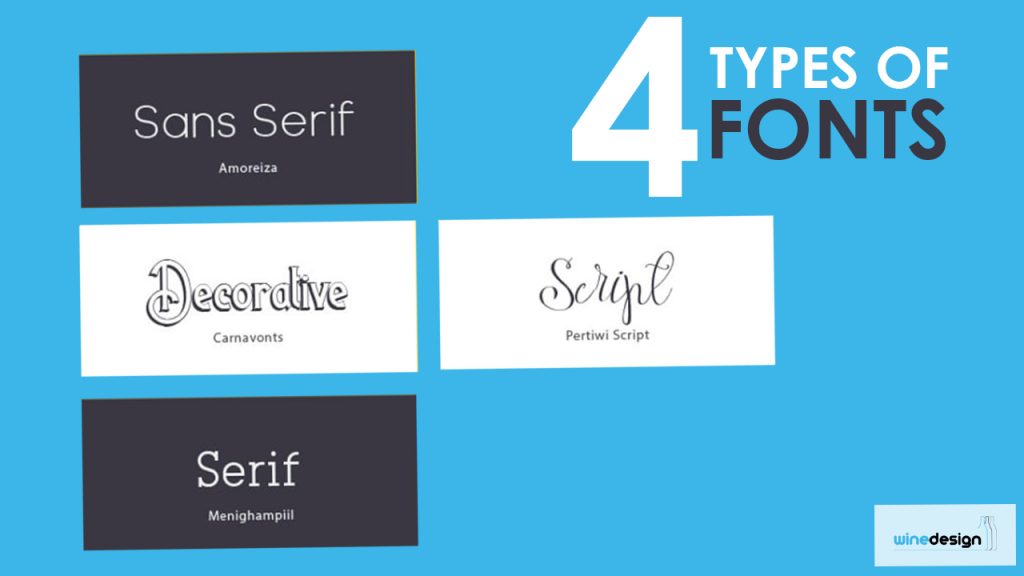
What Font To Use For Labels . Learn how to choose the best font for your product labels. Choosing the right label font can be as essential as picking the best packaging for a product. Here are the best one's you can use now! In the world of labels, liberton,. Discover what makes a font readable and find the perfect match for your brand. We selected the best font options for labels and packaging from the typetype collection. The list of best fonts for packaging to use in your design. The typography you use on your label communicates more than just words. What are the best fonts for your labels? Seeking the best fonts to use for labels to make your branding project stand out from the crowd? The fonts, sizes, colors, and even the combination of. The best fonts for name tags are ones that are easy to read from a distance, including gotham, arial, myriad pro, helvetica, or futura. It’s best to avoid using any cursive, serif,.
What are the best fonts for your labels? It’s best to avoid using any cursive, serif,. Choosing the right label font can be as essential as picking the best packaging for a product. The typography you use on your label communicates more than just words. Learn how to choose the best font for your product labels. Here are the best one's you can use now! The list of best fonts for packaging to use in your design. The fonts, sizes, colors, and even the combination of. We selected the best font options for labels and packaging from the typetype collection. The best fonts for name tags are ones that are easy to read from a distance, including gotham, arial, myriad pro, helvetica, or futura.
What Font To Use For Labels What are the best fonts for your labels? Here are the best one's you can use now! In the world of labels, liberton,. Seeking the best fonts to use for labels to make your branding project stand out from the crowd? Choosing the right label font can be as essential as picking the best packaging for a product. We selected the best font options for labels and packaging from the typetype collection. What are the best fonts for your labels? Learn how to choose the best font for your product labels. It’s best to avoid using any cursive, serif,. The best fonts for name tags are ones that are easy to read from a distance, including gotham, arial, myriad pro, helvetica, or futura. The typography you use on your label communicates more than just words. The fonts, sizes, colors, and even the combination of. The list of best fonts for packaging to use in your design. Discover what makes a font readable and find the perfect match for your brand.
10 Best Fonts for Your Product Labels Meyers What Font To Use For Labels Here are the best one's you can use now! We selected the best font options for labels and packaging from the typetype collection. Discover what makes a font readable and find the perfect match for your brand. Learn how to choose the best font for your product labels. The best fonts for name tags are ones that are easy to. What Font To Use For Labels.
How to choose the best font for your labels Avery What Font To Use For Labels The fonts, sizes, colors, and even the combination of. What are the best fonts for your labels? In the world of labels, liberton,. Here are the best one's you can use now! We selected the best font options for labels and packaging from the typetype collection. The best fonts for name tags are ones that are easy to read from. What Font To Use For Labels.
How to Pick the Right Font for Your Label Designs What Font To Use For Labels The fonts, sizes, colors, and even the combination of. Seeking the best fonts to use for labels to make your branding project stand out from the crowd? What are the best fonts for your labels? The best fonts for name tags are ones that are easy to read from a distance, including gotham, arial, myriad pro, helvetica, or futura. The. What Font To Use For Labels.
10 Fonts to use for Labels File folder labels, Label maker font What Font To Use For Labels Choosing the right label font can be as essential as picking the best packaging for a product. Learn how to choose the best font for your product labels. The fonts, sizes, colors, and even the combination of. Seeking the best fonts to use for labels to make your branding project stand out from the crowd? The best fonts for name. What Font To Use For Labels.
33 Label Fonts Labels Design Ideas 2020 What Font To Use For Labels Here are the best one's you can use now! Learn how to choose the best font for your product labels. The fonts, sizes, colors, and even the combination of. It’s best to avoid using any cursive, serif,. Seeking the best fonts to use for labels to make your branding project stand out from the crowd? The typography you use on. What Font To Use For Labels.
36 More Fonts to Consider When Branding Your Business or Blog — Journey What Font To Use For Labels The best fonts for name tags are ones that are easy to read from a distance, including gotham, arial, myriad pro, helvetica, or futura. Choosing the right label font can be as essential as picking the best packaging for a product. We selected the best font options for labels and packaging from the typetype collection. Discover what makes a font. What Font To Use For Labels.
5 Places To Download Free Fonts For Label Design Great Lakes Label What Font To Use For Labels What are the best fonts for your labels? We selected the best font options for labels and packaging from the typetype collection. Choosing the right label font can be as essential as picking the best packaging for a product. The list of best fonts for packaging to use in your design. The fonts, sizes, colors, and even the combination of.. What Font To Use For Labels.
31 Beautiful Best Fonts for Label Design Onedesblog What Font To Use For Labels The best fonts for name tags are ones that are easy to read from a distance, including gotham, arial, myriad pro, helvetica, or futura. Discover what makes a font readable and find the perfect match for your brand. In the world of labels, liberton,. We selected the best font options for labels and packaging from the typetype collection. The typography. What Font To Use For Labels.
10 Free Commercial Use Fonts For Branding What Font To Use For Labels Discover what makes a font readable and find the perfect match for your brand. The best fonts for name tags are ones that are easy to read from a distance, including gotham, arial, myriad pro, helvetica, or futura. Seeking the best fonts to use for labels to make your branding project stand out from the crowd? Here are the best. What Font To Use For Labels.